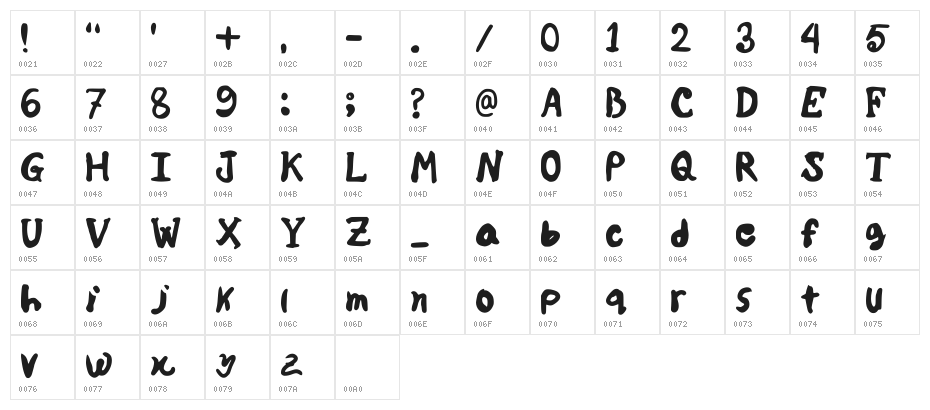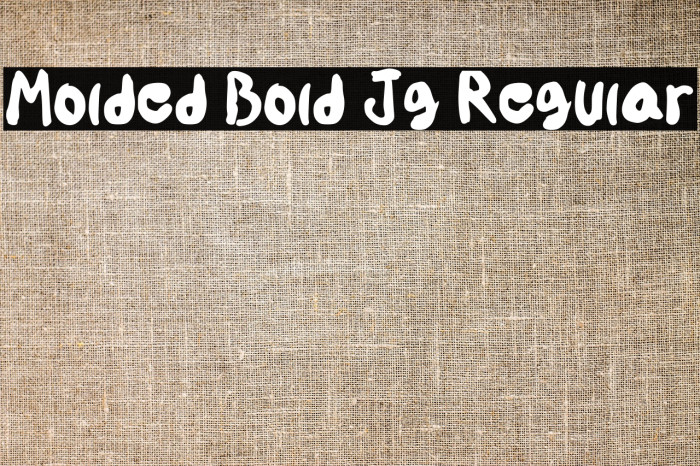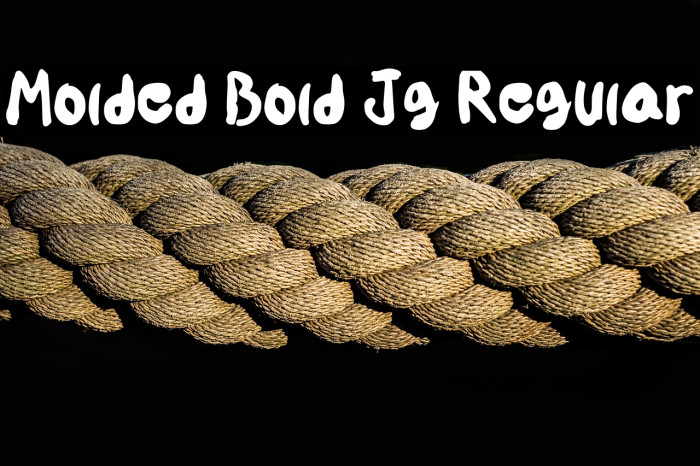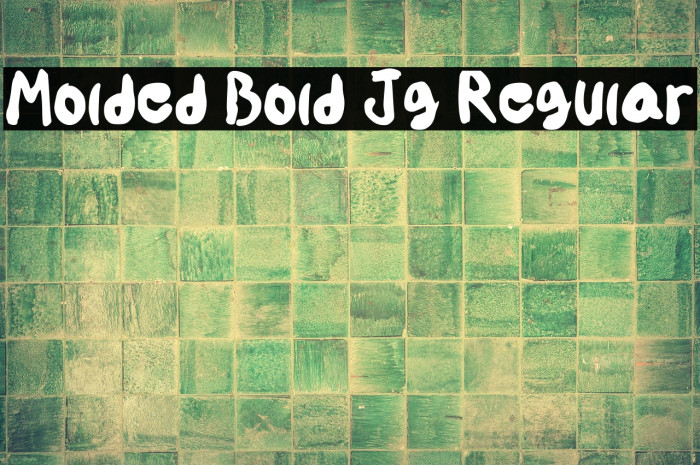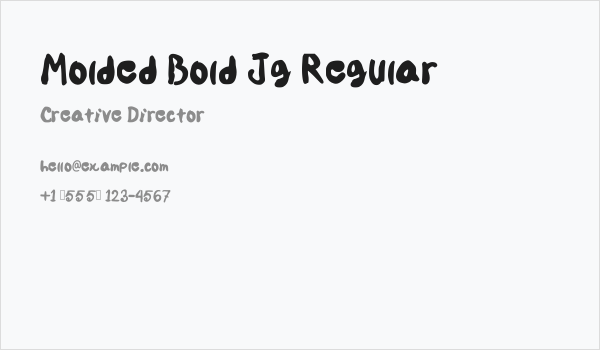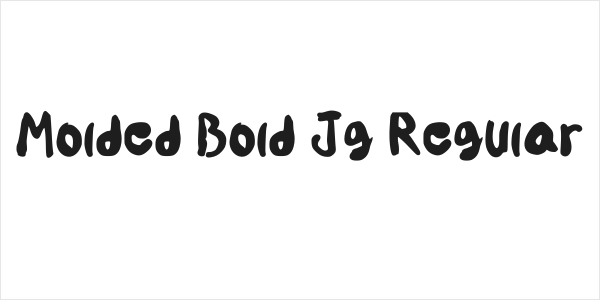
Molded Bold Jg Regular Font
Molded Bold Jg Regular Description
This font exhibits a playful and bold style with a hand-drawn appearance. The characters are rounded and slightly irregular, giving it a casual and informal feel. The uppercase and lowercase letters maintain a consistent weight, contributing to its boldness. The numerals and special characters follow the same playful design, making it suitable for creative and fun projects. The overall look is reminiscent of a handwritten script, yet with a distinct boldness that stands out.
| Proposed Projects | Ideal for children's books, playful branding, greeting cards, and creative posters. |